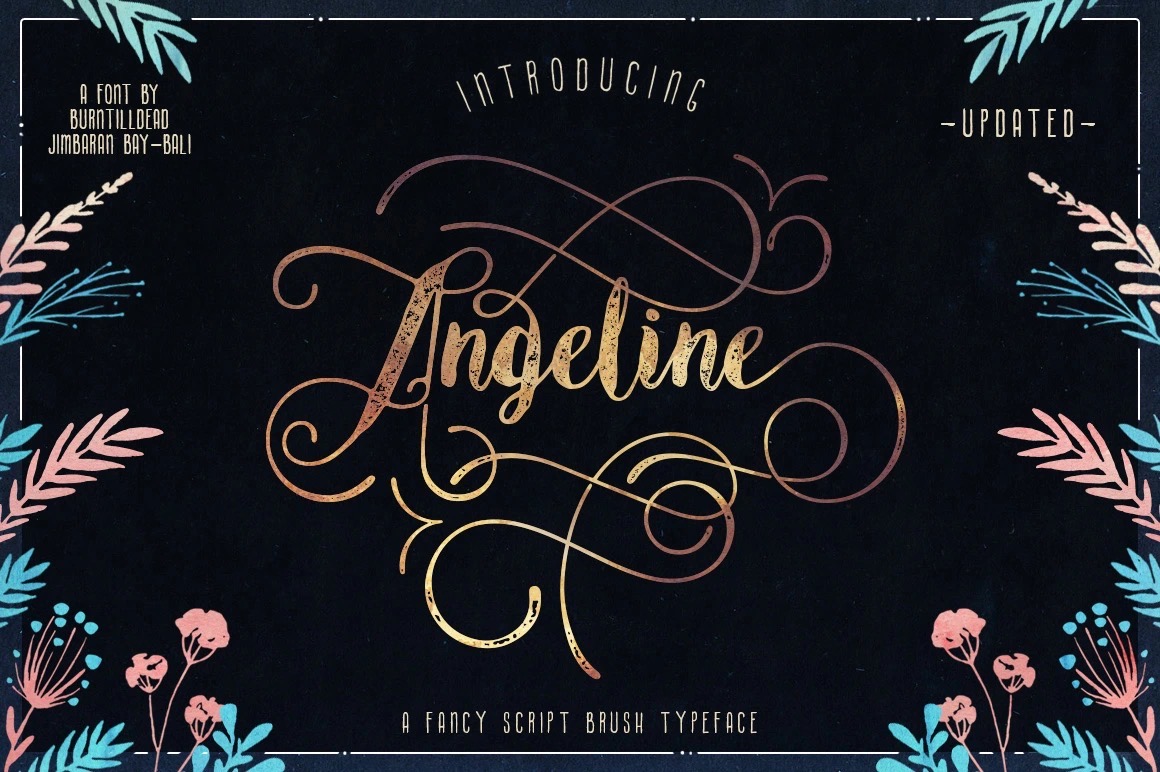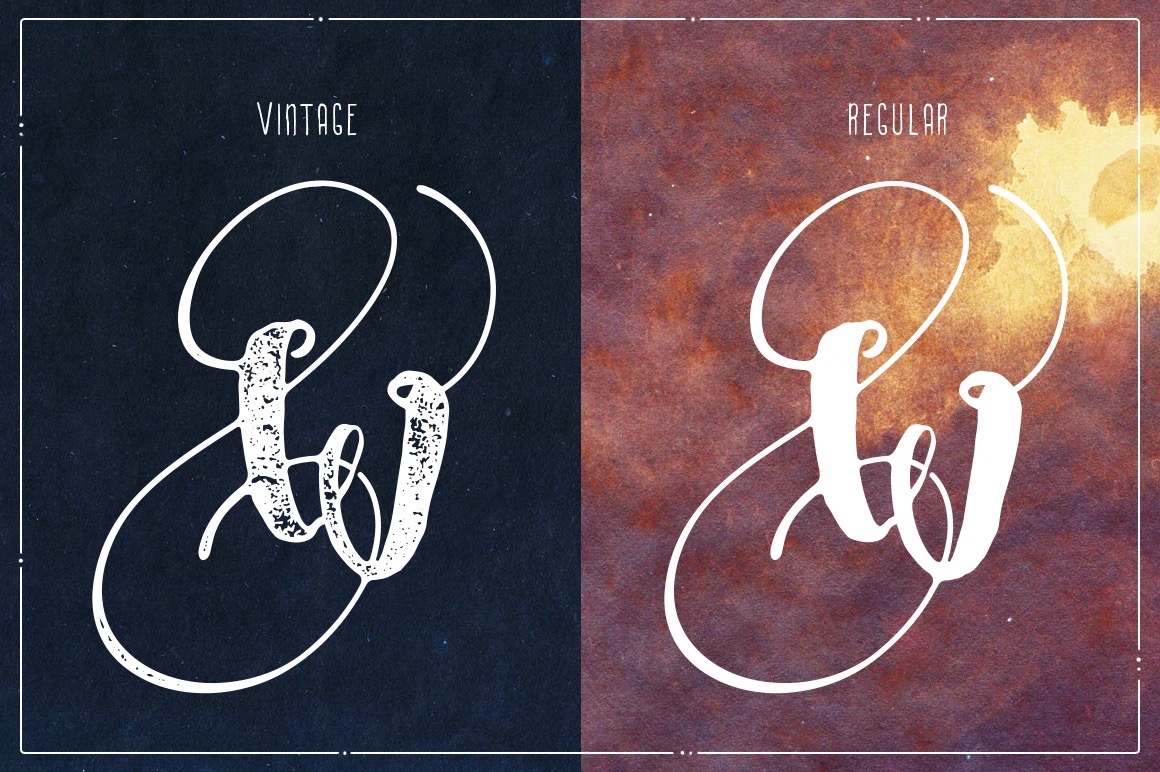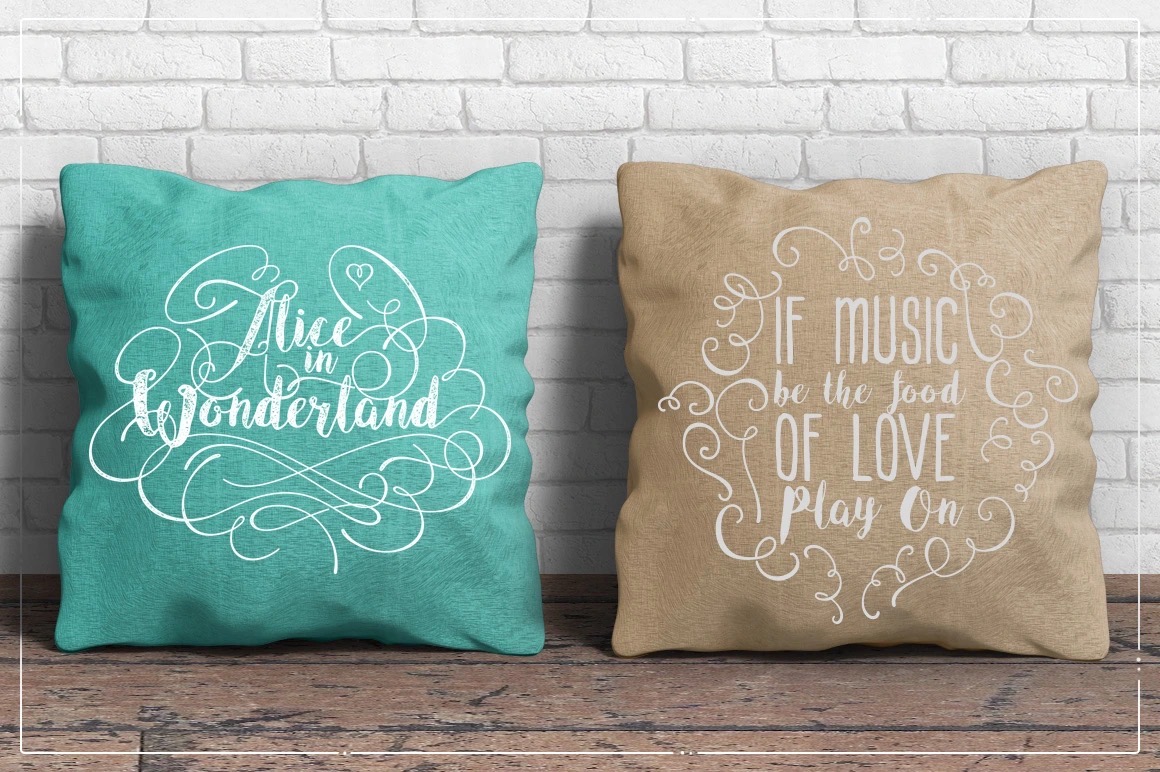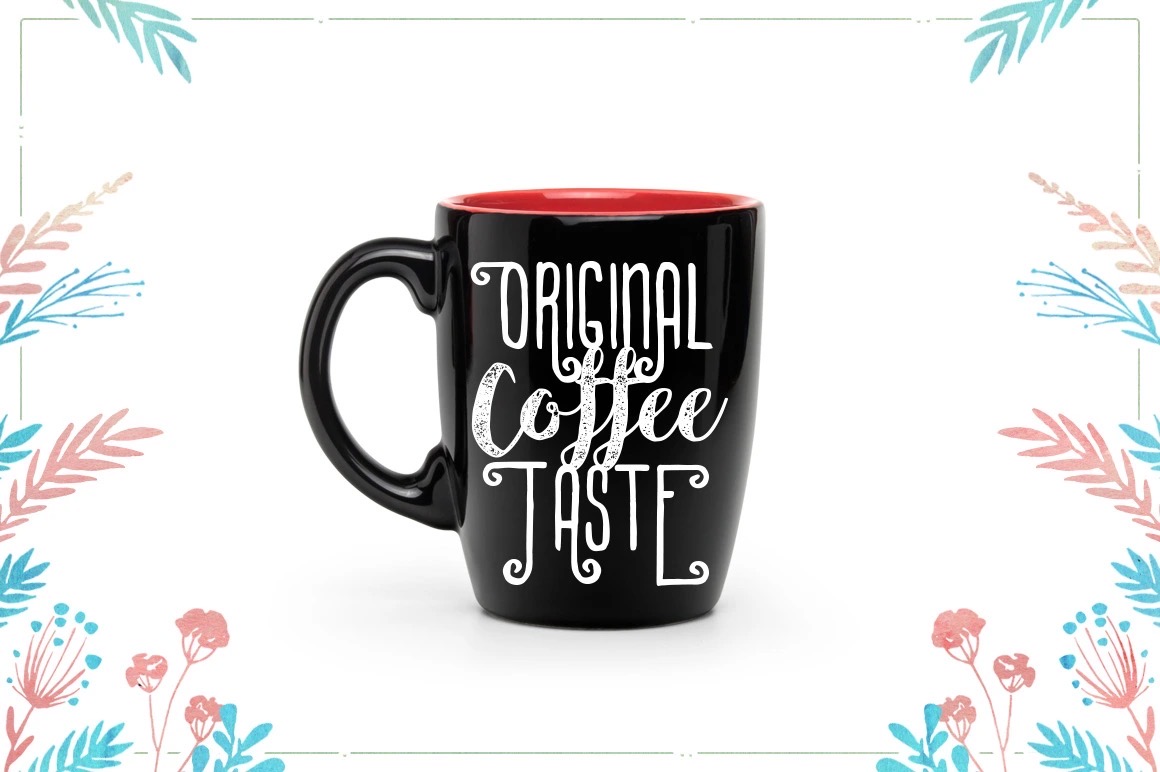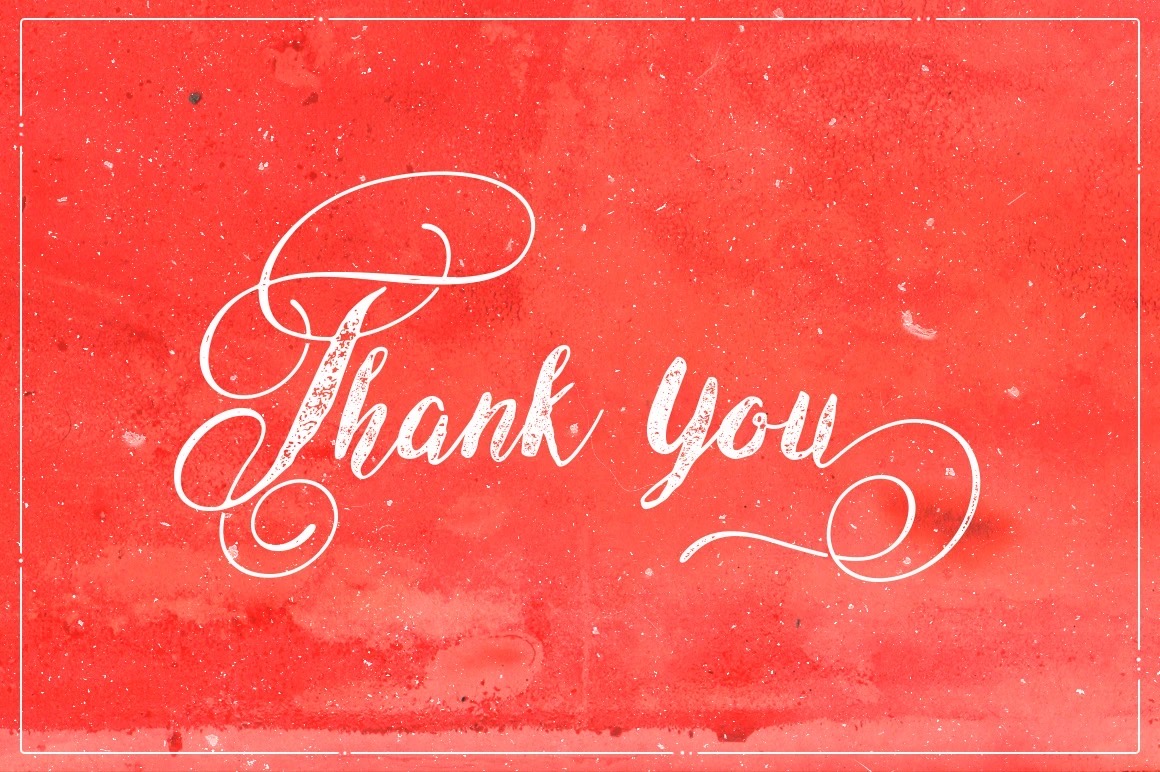
Angeline
byBurn Till Dead Studio
Regular
Italic
Vintage Italic
Swash
Introducing This font makes your design project looks pretty and classic in cursive writing.
Angeline comes with alternate upper and lowercase characters, punctuation, and supports international languages.  This font also include swashes to support your design project looks amazing. Suitable for any project design like logotype, brand label, merchandise and etc.
• A – Z set (Uppercase & Lowercase)
• Number
• Punctuation
• Alternates
• Ligatures
• Multilingual